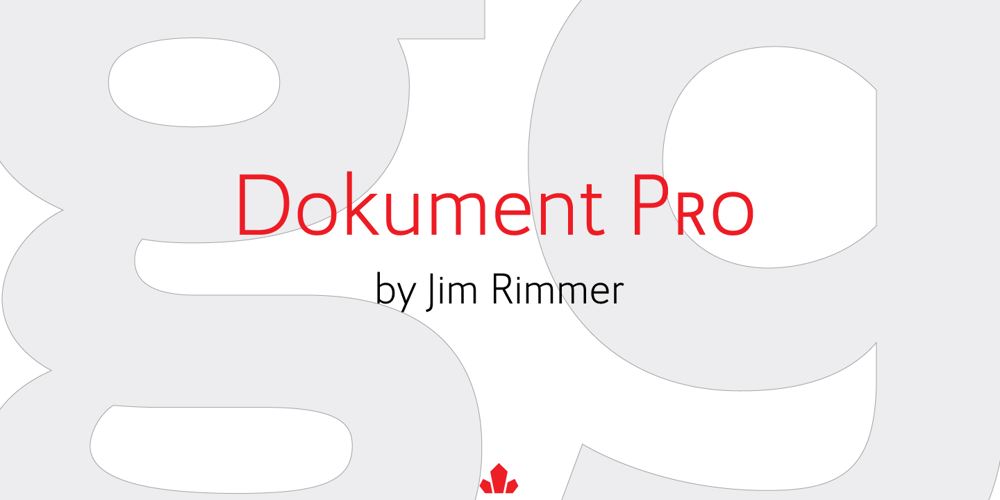
Dokument Pro
Dokument Pro font
Dokument Pro Font Family was designed by Jim Rimmer and published by Canada Type. Dokument Pro contains 12 styles and family package options. Jim Rimmer aptly described his Dokument family as a sans serif in the vein of News Gothic that takes nothing from News Gothic. Building on that internal analysis, Dokument Pro is the thoroughly reworked and expanded of the original main set released in 2005, with different widths still in the pipeline. This new version updates Jim’s work to six Pro weights and their italic counterparts, each of which takes advantage of OpenType stylistic sets to introduce different degrees of graduation from gothic to humanist. Dokument Pro is now a unique text sans family, with an adaptable personality suitable for the kind of edgy, uncompromising corporate and media typography that just tells it like it is, instead of having to resort to the common contemporary luring and baiting tactics. Dokument Pro’s range of weights, styles and features (over 775 glyphs per font, built-in small caps, alternates galore, and support for over 45 Latin languages) allows for multi-application versatility and clear, precise emotional delivery. This is the kind of straight-shooter sans that should be in every designer’s toolbelt. For more details on the fonts’ features, text and display specimens and print tests, consult the Dokument Pro PDF availabe in the Gallery section of this page. 20% of Dokument Pro’s revenues will be donated to the Canada Type Scholarship Fund, supporting higher typography education in Canada.